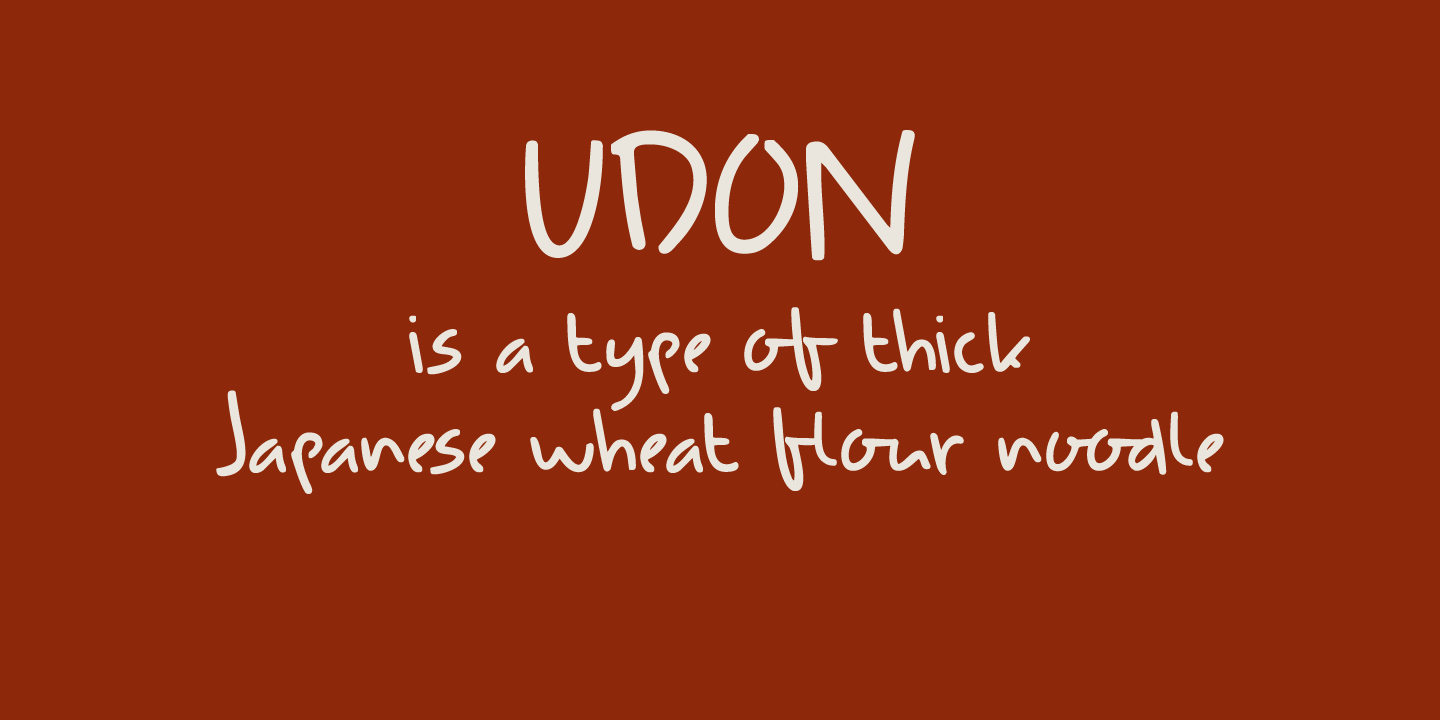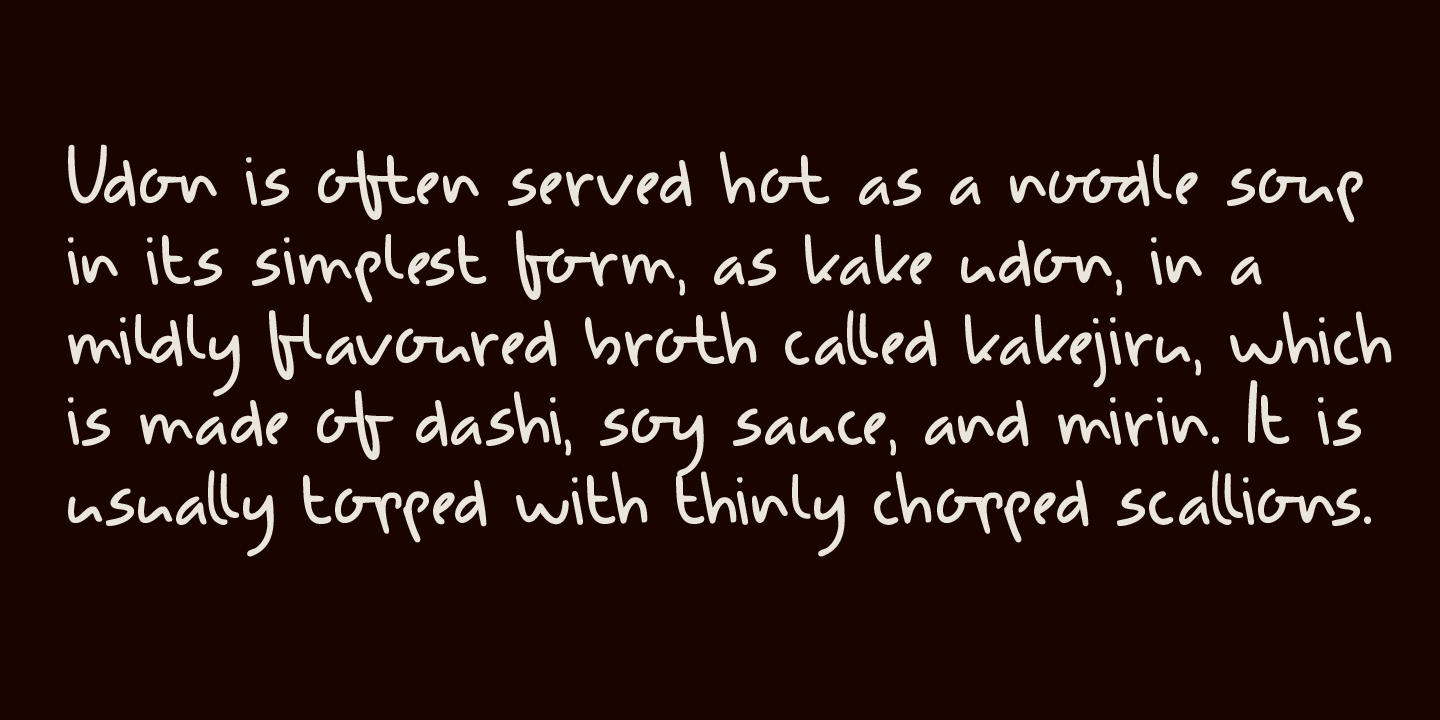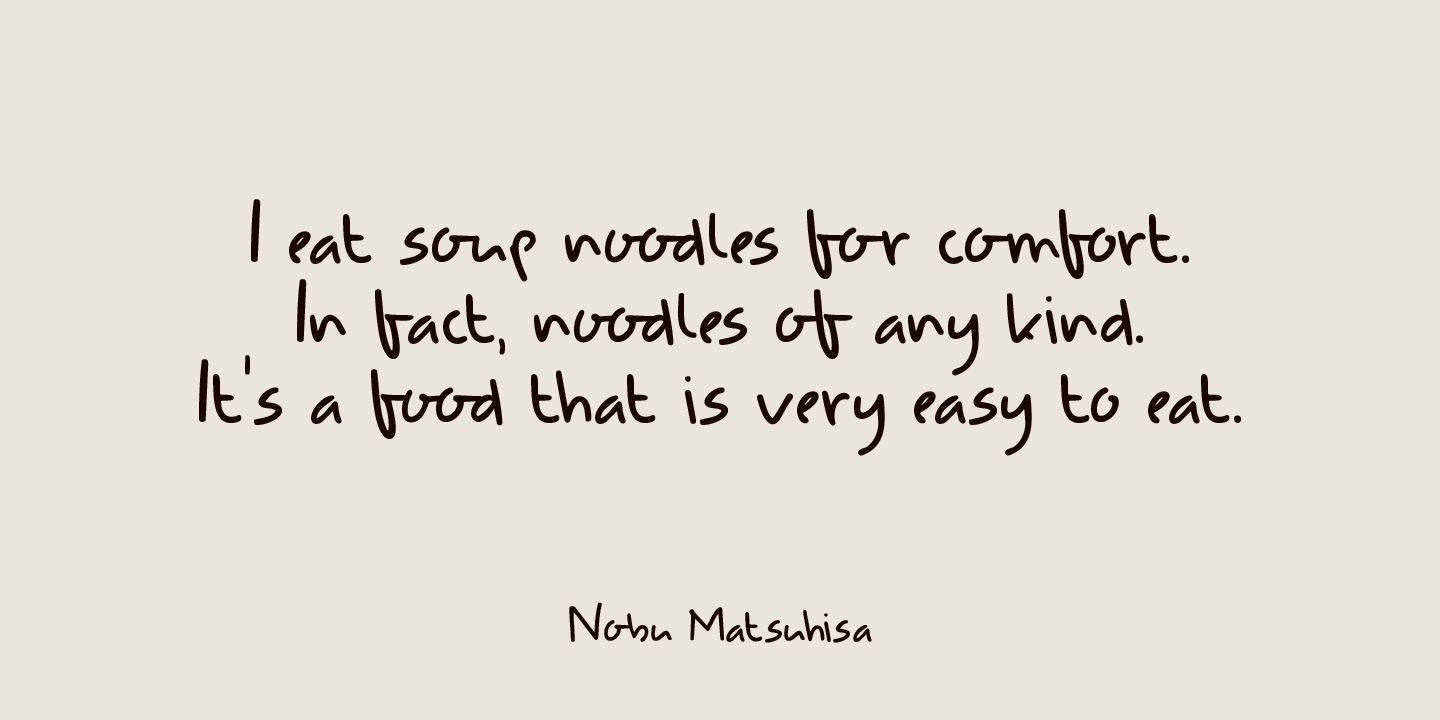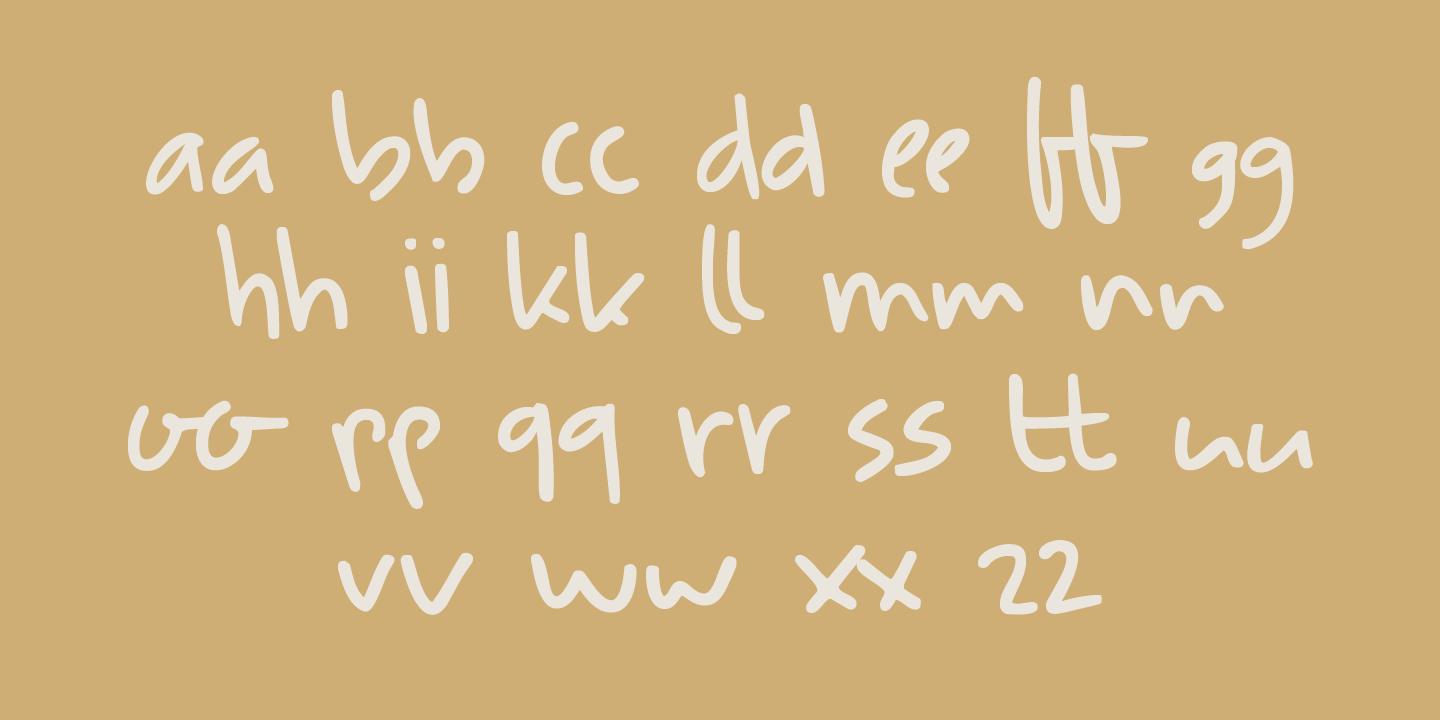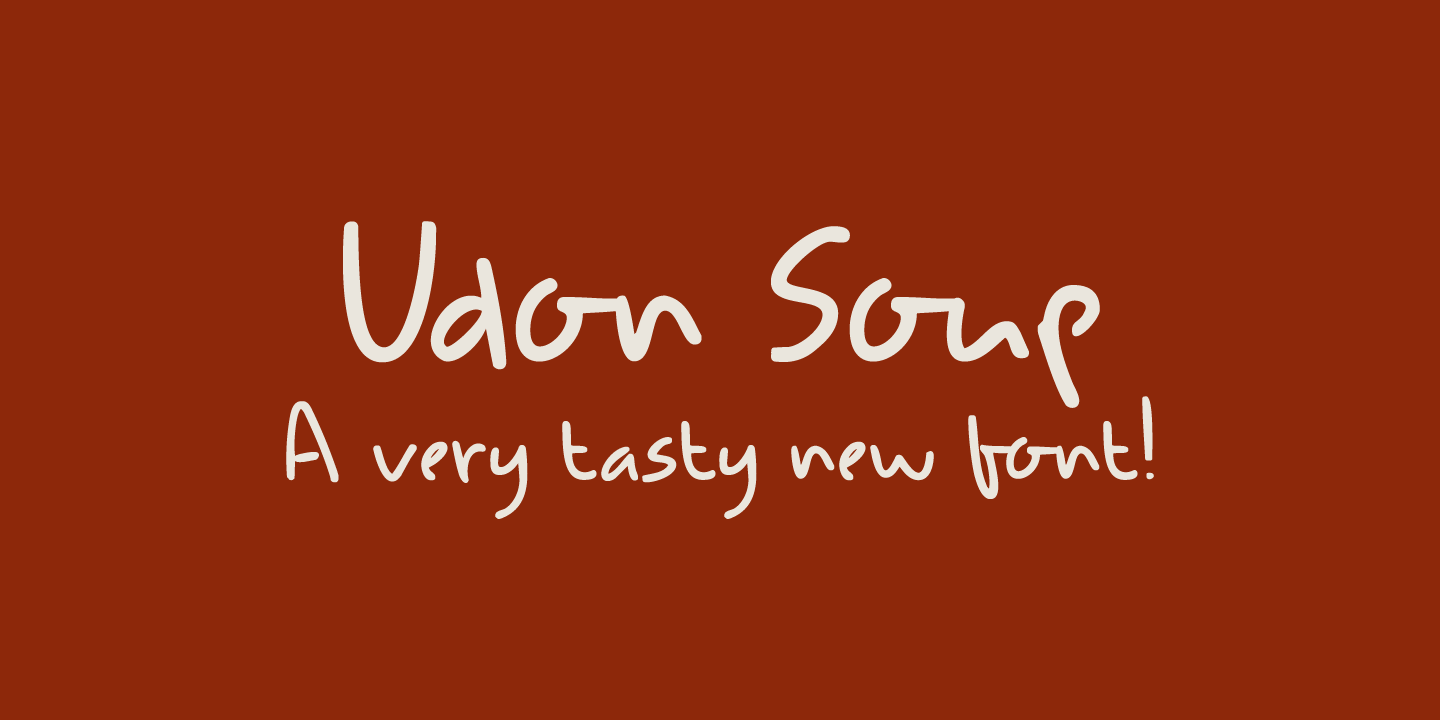
Udon Soup
About Udon Soup
Udon Soupis my all time favourite Japanese food! I like it so much that I decided to name a font after it. Udon Soup font is a handmade script font, kind of messy, kind of weird, but very legible and useful. Comes with oodles of diacritics and double…